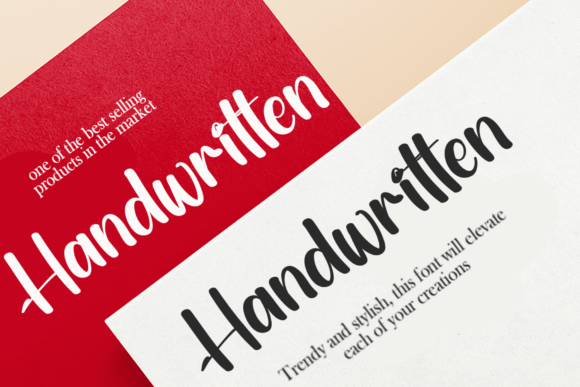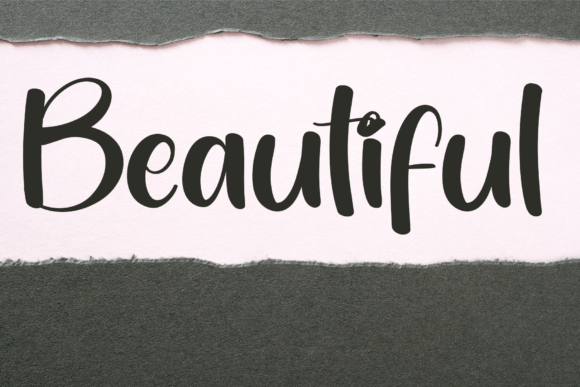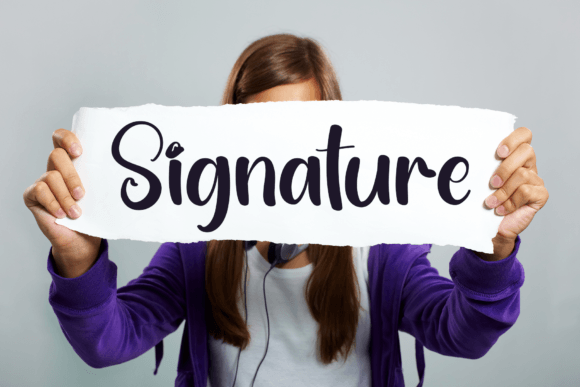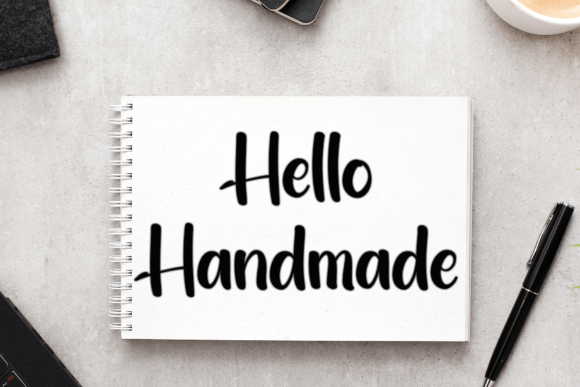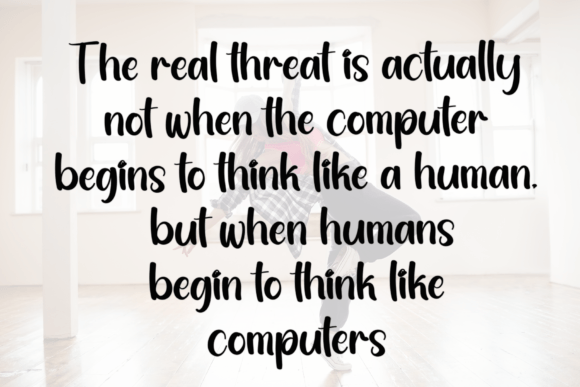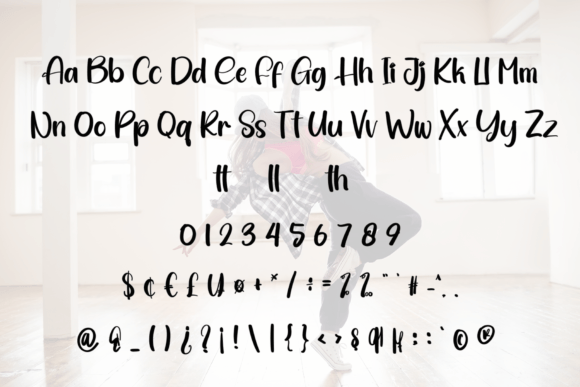
Introducing Agile Font: Elevate Your Designs with a Touch of Luxury
Are you tired of using the same old fonts in your design projects? Look no further! Agile Font is here to revolutionize the way you approach typography. This stunning handwritten font is designed to add a touch of luxury and sophistication to any design project. With its unique characters that dance along the baseline, Agile Font is sure to make your designs stand out from the crowd.
What Makes Agile Font So Special?
Agile Font is a sweet and beautiful handwritten font that boasts a range of features that set it apart from other fonts on the market. Here are just a few reasons why designers and crafters are falling in love with Agile Font:
- Unique Character Design: The characters in Agile Font are designed to dance along the baseline, creating a sense of movement and fluidity. This unique design feature adds a touch of whimsy and playfulness to any design project.
- Luxury Appeal: Agile Font has a luxurious feel that’s perfect for high-end design projects. Whether you’re creating a brand identity, packaging, or marketing materials, Agile Font is sure to make a statement.
- Versatility: Agile Font is incredibly versatile and can be used in a range of design projects, from digital designs to print materials.
How to Use Agile Font in Your Design Projects
Using Agile Font in your design projects is easy. Here are a few tips to get you started:
- Pair it with Other Fonts: Agile Font pairs perfectly with other fonts, creating a beautiful contrast that adds depth and interest to your designs.
- Use it for Headings and Titles: Agile Font is perfect for headings and titles, adding a touch of luxury and sophistication to your designs.
- Experiment with Colors: Agile Font looks stunning in a range of colors, from bold and bright to soft and pastel.
Benefits of Using Agile Font
There are many benefits to using Agile Font in your design projects. Here are just a few:
- Stand Out from the Crowd: Agile Font is a unique and distinctive font that’s sure to make your designs stand out from the crowd.
- Professional Look and Feel: Agile Font has a professional look and feel that’s perfect for businesses and brands looking to elevate their design projects.
- Easy to Read: Agile Font is easy to read, making it perfect for body text and other written content.
Who Can Benefit from Using Agile Font?
Agile Font is perfect for a range of designers and crafters, including:
- Graphic Designers: Agile Font is perfect for graphic designers looking to add a touch of luxury and sophistication to their designs.
- Branding Experts: Agile Font is perfect for branding experts looking to create a unique and distinctive brand identity.
- Crafters and Artists: Agile Font is perfect for crafters and artists looking to add a touch of personality and whimsy to their designs.